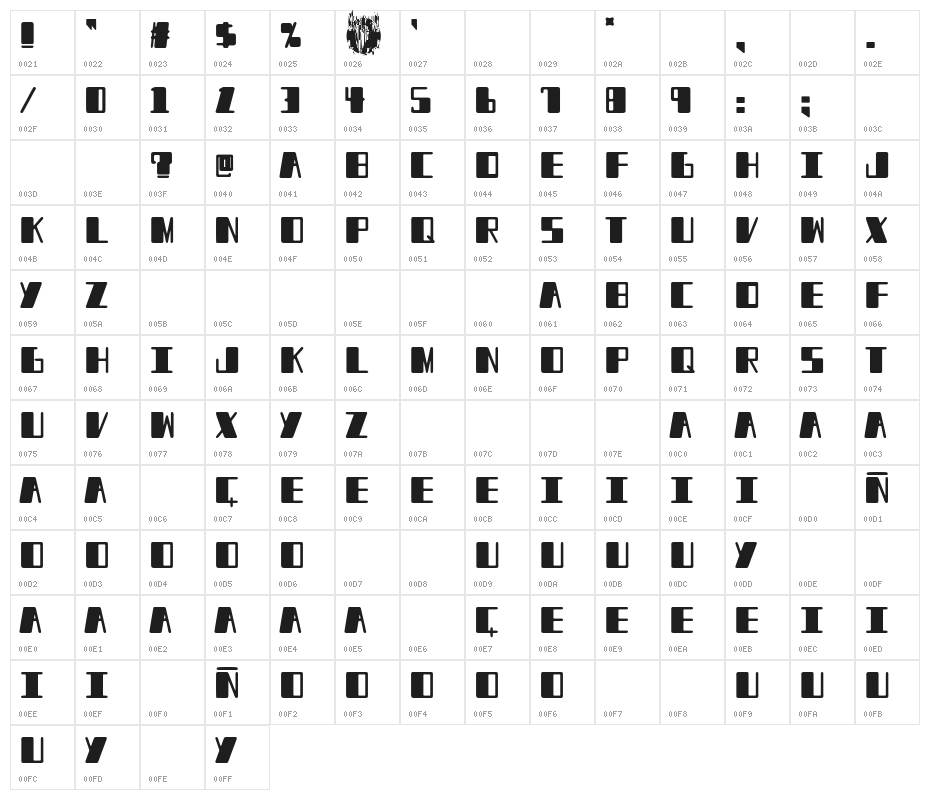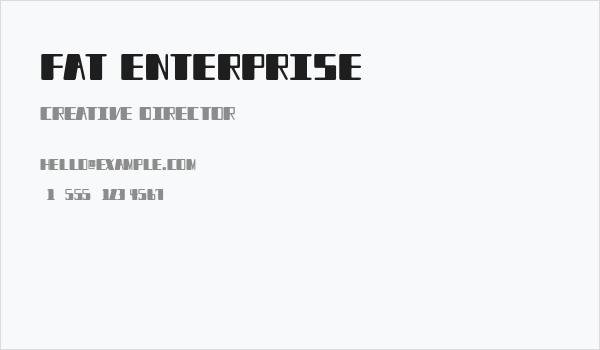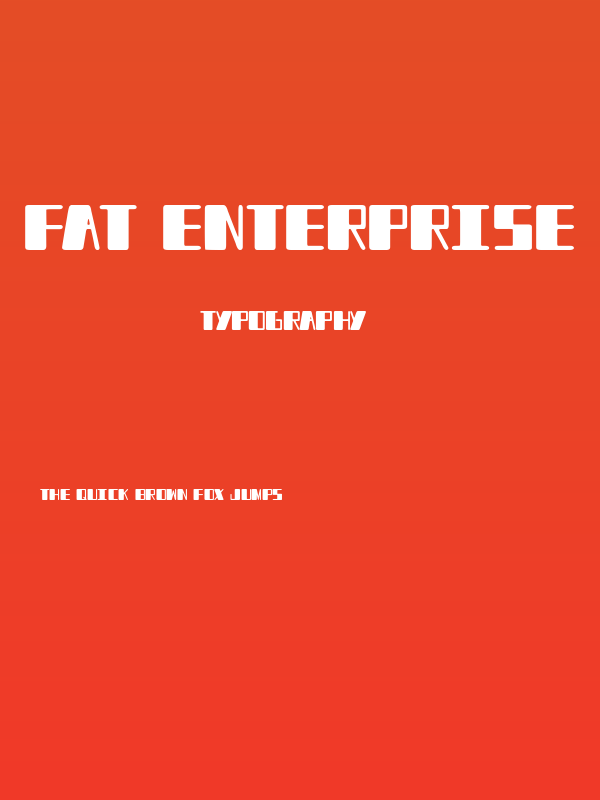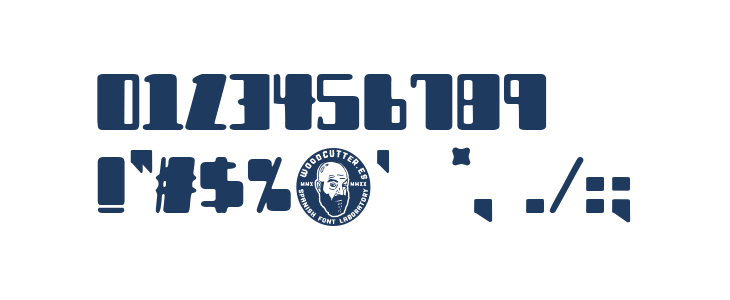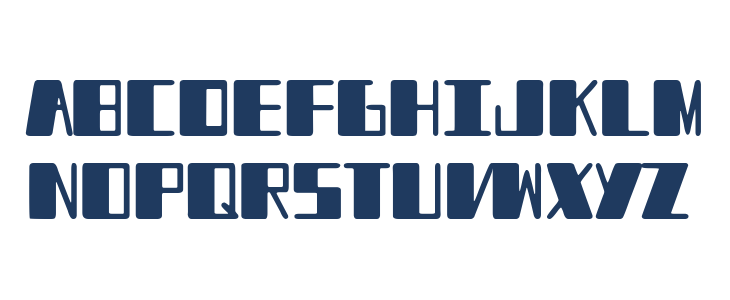
Fat Enterprise Font
Fat Enterprise Description
This bold and striking font features a unique, blocky design with a futuristic edge. The characters are wide and have a distinct geometric style, with sharp angles and a solid appearance. The uppercase and lowercase letters maintain a consistent height, creating a uniform look across the text. The numbers and special characters follow the same bold and angular design, ensuring cohesion throughout. This font's strong presence makes it ideal for attention-grabbing headlines or impactful logos. Its modern and industrial feel is perfect for projects that require a bold statement.
| Proposed Projects | Ideal for branding, posters, video game titles, and futuristic-themed designs. |